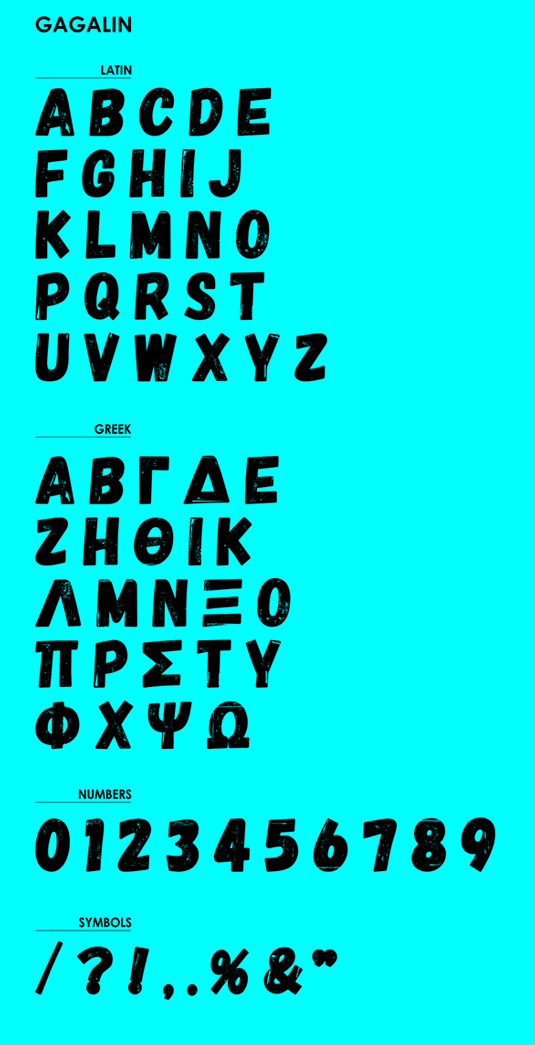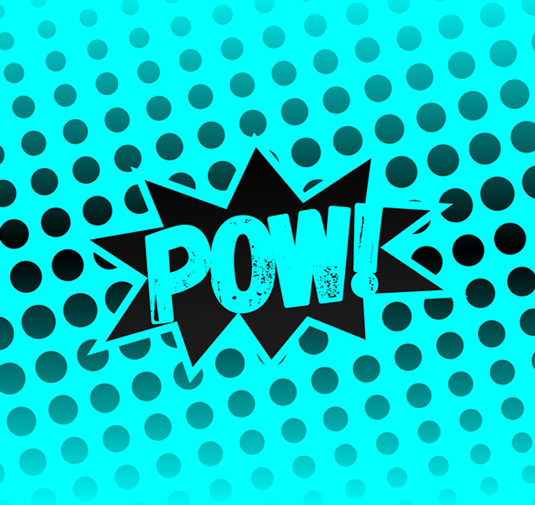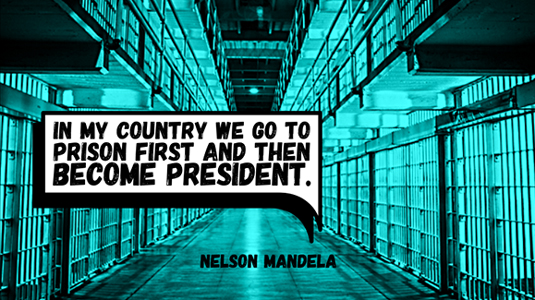
Font of the day: Gagalin
Gagalin by Iordanis Passas
Working on a comic strip? Complete your design with this free comic typeface, Gagalin by Iordanis Passas. Free for both personal and commercial use, Gagalin comes complete with a full set of uppercase letters, numbers and variety of special characters.